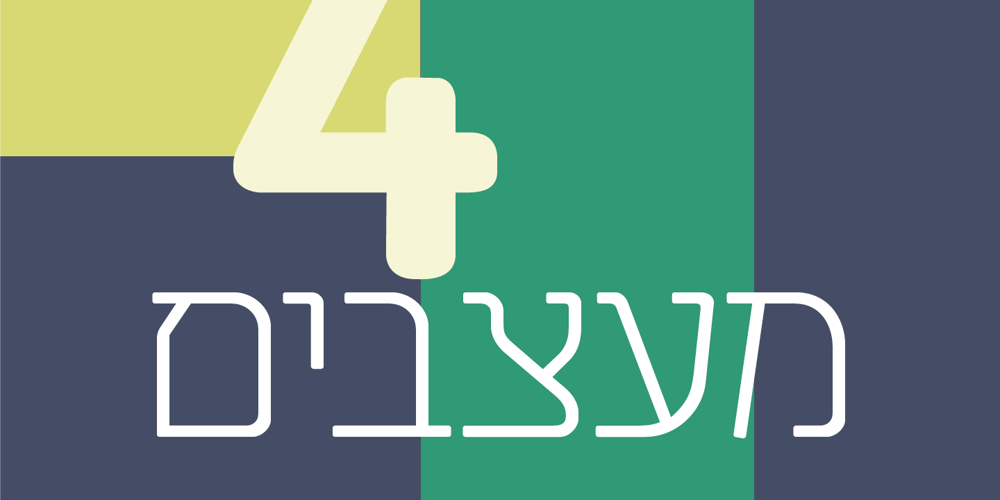
Tmura MF
Tmura MF font
Tmura MF Font Family was designed by Zvika Rosenberg and published by Masterfont. Tmura MF contains 5 styles and family package options. This square and elegant typeface has unique round stems that makes the geometric look of Tmura MF work well in any point size.